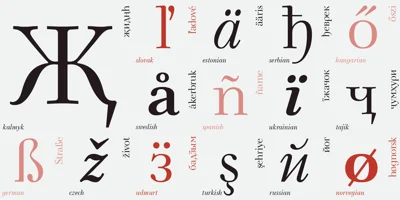
Neva Font
Neva Font is perfect for Russian cultural institution branding, Eastern European restaurant signage, Slavic heritage celebration materials, international diplomatic communications, multicultural event promotions, authentic European cuisine packaging, cultural exchange program graphics, traditional folk art exhibitions, historical museum displays, and distinguished Eastern European lifestyle branding.
What makes Neva Font so exciting is its extraordinary ability to capture the rich cultural heritage and sophisticated elegance of Eastern European civilization through gracefully crafted letterforms that seem inscribed by master calligraphers in St. Petersburg palaces and blessed with the kind of refined beauty that flows like the legendary Neva River through centuries of artistic achievement and cultural excellence. This font embodies the essence of Slavic sophistication and European cultural depth, featuring elegantly proportioned characters that appear to carry the wisdom of generations and the artistic legacy of a civilization that has contributed immeasurably to world literature, music, and visual arts. The culturally refined letter shapes create an atmosphere of intellectual dignity and artistic authority, making every word feel like it honors the profound cultural traditions that have shaped Eastern European identity and continues to inspire global appreciation for Slavic artistic excellence.
The Neva Font family includes Thin, Light, Regular, Medium, Bold, and Display weights, along with elegant italic variations and cultural decorative elements. Each style maintains the font's distinctive Eastern European character while offering versatility for different cultural applications, from delicate literary text to commanding headlines that celebrate the enduring contributions of Slavic civilization to world culture and artistic achievement.
This distinguished typeface brings authentic Eastern European cultural aesthetics to contemporary design projects. The Neva Font offers designers an invaluable resource for creating memorable brand identities that communicate cultural depth, artistic sophistication, and Eastern European authenticity. Whether you're developing cultural institution branding, designing heritage celebration materials, or creating international diplomatic communications, this font delivers unmatched elegance and cultural credibility.
The expertly crafted letterforms in Neva Font feature classical proportions and refined details that mirror the architectural grandeur of Eastern European cities and the sophisticated cultural traditions that have produced some of the world's greatest literary works, musical compositions, and artistic masterpieces. Each character has been designed to maintain perfect readability while expressing the intellectual richness and cultural gravitas that define authentic Eastern European artistic expression. The font's distinctive personality makes it ideal for applications requiring genuine cultural authority and Slavic heritage appeal.
Cultural and diplomatic professionals appreciate how Neva Font effortlessly communicates sophistication, cultural authenticity, and Eastern European excellence while appealing to international audiences seeking genuine cultural experiences that honor both historical traditions and contemporary achievements of Slavic civilization. The comprehensive character set includes Cyrillic symbols, cultural ornaments, traditional decorations, and extensive international language support, ensuring global compatibility while preserving its distinctive Neva identity. This makes it an invaluable resource for cultural institutions, diplomatic organizations, heritage societies, and any establishment seeking typography that embodies the timeless principles of Eastern European cultural excellence, intellectual sophistication, and the kind of refined beauty that reflects the enduring legacy of civilizations that understand culture is not merely entertainment, but the foundation upon which societies build their highest aspirations and most lasting contributions to human understanding, artistic beauty, and the eternal quest for truth that flows through history like the majestic Neva River through the heart of one of the world's most culturally significant cities.